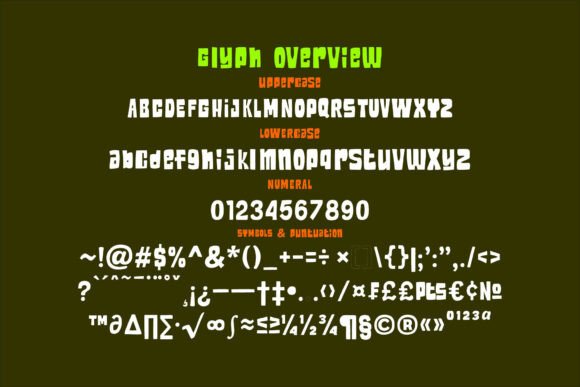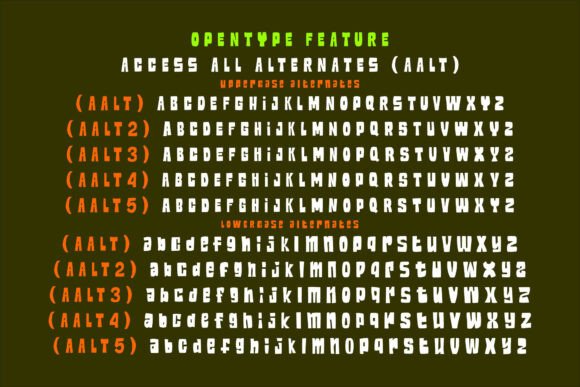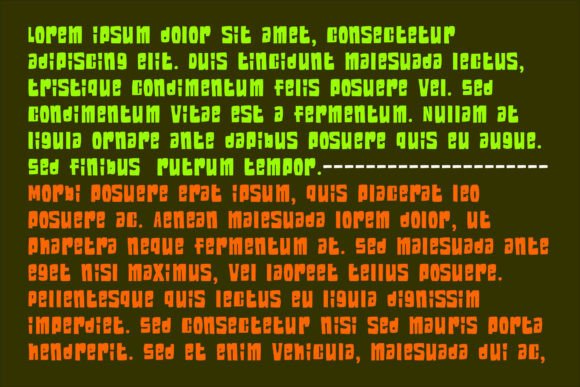
Introduction to Peace Love Font Font
Fonts play a crucial role in design, and the Peace Love Font font is a typeface that brings both character and versatility to any project. Whether you’re working on a branding project, a website, or a print design, the Peace Love Font font offers a unique style that can elevate your work.
Peace Love font is a Funky display font, handdrawn with multiple alternate in every character.
Peace Love font is a Funky display font, handdrawn with multiple alternate in every character. perfect for logotype, branding, campaign, ad other hand made design craft
Key Features of Peace Love Font Font
Why Choose Peace Love Font Font?
The Peace Love Font font is more than just a typeface – it’s a design tool that helps you communicate your message with style and clarity. Its unique character set and versatile design make it suitable for a wide range of applications, from elegant invitations to bold headlines.
With its carefully crafted letterforms and balanced proportions, the Peace Love Font font ensures readability and visual appeal across all mediums.
What makes Peace Love Font font special?
The Peace Love Font font stands out with its unique design, exceptional readability, and versatility across various design applications.